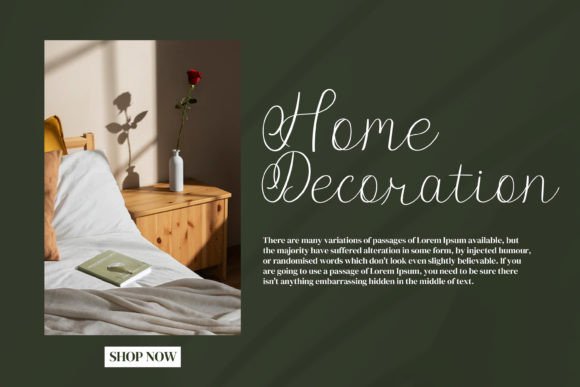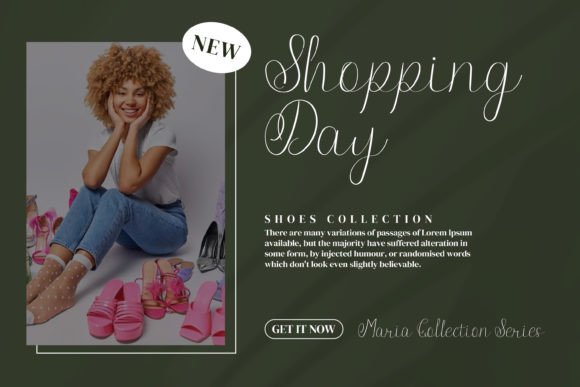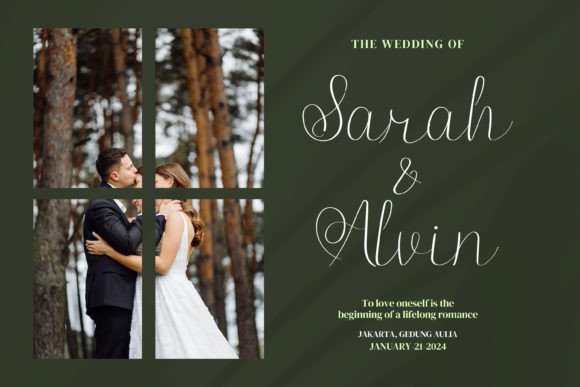
Introduction to Donitty Font
Donitty is a delicate and elegant handwritten font.
Its distinct and well-balanced letters make this font a masterpiece Fall in love with its incredibly versatile style and use it to create spectacular designs.
Why Choose Donitty Font?
Donitty Font offers exceptional quality and versatility, making it a valuable addition to your design toolkit. Whether you’re creating for personal projects or commercial use, Donitty Font delivers professional results.